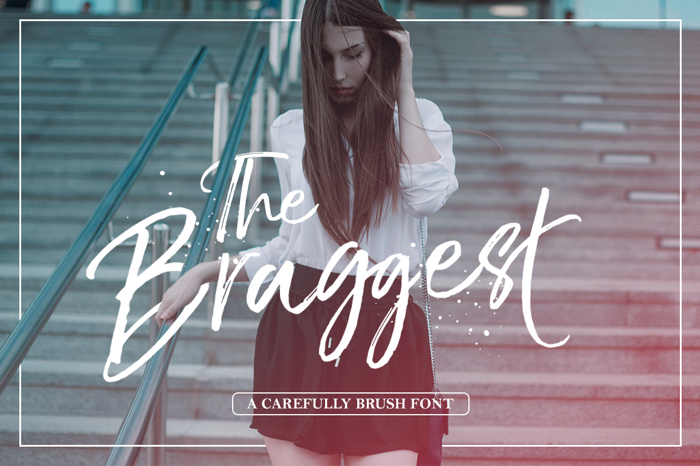
The BraggestDemo Font
The Braggest a new brush font carefully on making sketch and scanning until we get the best result, and so was born a new crazy font and make it a very personal handwriting for every project. The Braggest includes two lowercase characters, and very likely ligature thats allow you to make a personal handwriting especially for branding project